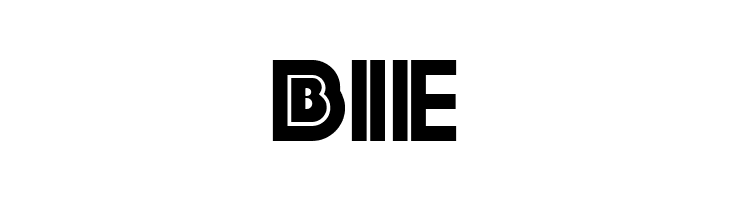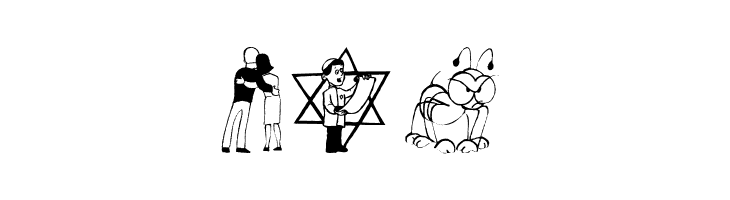
• Foam Demo
A bold, rounded font with a playful and approachable style.
• Fontleroy Brown NF
An elegant, decorative font with ornate uppercase letters and subtle lowercase curves.
• FontleroyBrownNF
An elegant, decorative font with ornate uppercase and stylish lowercase letters.
• Fontmoochers
A whimsical, playful font with decorative swirls and a casual script style.
• For The One Hundreth Time
A decorative, grunge-inspired font with a vintage and eclectic style.
• ForCongratulations
Cartoon dingbat font with celebration and party-themed illustrations.
• Fortune Cookie NF
A geometric and angular font with a modern, artistic flair.
• FortuneCookieNF
A bold, angular font with a futuristic and artistic design.
• Forty-Second Street NF
A bold, Art Deco-inspired font with geometric shapes and strong lines.
• FPL Neu
A classic serif font with elegant strokes and a refined appearance.